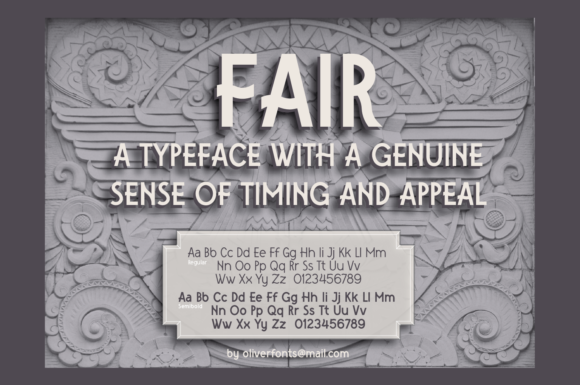
Discover the Secret to Elevating Your Designs: Fair Font
Have you ever found yourself staring at a blank page, struggling to bring your creative vision to life? It’s a feeling we’ve all been there, right? But what if I told you that the right font could be the missing piece that takes your design from bland to grand? Enter Fair Font, a game-changing sans serif font that’s about to revolutionize the way you think about typography.
This versatile font is designed to add a touch of sophistication and elegance to your work, making it perfect for designers who want to make a statement. With Fair Font, you can create visually stunning designs that capture the attention of your audience. Whether you’re working on a branding project, a website, or a social media campaign, Fair Font is the perfect addition to your creative toolkit.
Fair Font Key Features
- Font Family: Fair Font is a sans-serif typeface designed for clear readability and modern aesthetic. It comes in multiple weights, from Light to Bold.
- Character Set: Supports a wide range of languages, including Latin, Cyrillic, Greek, and many others, making it a versatile choice for global applications.
- Unique Characteristics: Fair Font features a unique blend of clean lines, rounded edges, and subtle nuances, making it an excellent choice for modern designs, digital interfaces, and publications.
Fair Font Review
I recently had the chance to dive into the Fair Font, and I must say it’s an interesting addition to the world of typography. Here are my thoughts.
- High legibility: The Fair Font is designed to be easy to read, making it perfect for body text.
- Neutral aesthetic: The font’s design is straightforward and doesn’t compete with the content.
- Scalability: The font looks great in both small and large sizes, which is a must-have for any font.
- Lack of personality: The Fair Font’s design is a bit too safe and doesn’t have any distinct character.
- Not ideal for headings: The font’s design doesn’t lend itself well to headings or titles, which might be a disappointment for designers.
- Not as versatile as other fonts: The Fair Font is best suited for body text and might not be the best choice for other uses.
The Fair Font is a solid choice for body text, but it might not be the most exciting addition to your font collection. It’s reliable and gets the job done, but it doesn’t stand out in any particular way. If you’re looking for a clean and neutral font, the Fair Font might be worth a look.
For optimal results, use Fair Font for body text and headings in your designs.
- Brochures and flyers.
- Business cards and letterheads.
- Website content and social media posts.
Lato is a sans-serif font with a clean and modern design. It’s ideal for body text, headings, and titles, and works well for both digital and print use. Lato is more elegant than Fair Font, with a more subtle feel that’s perfect for corporate or professional designs. However, it’s not as condensed as Fair Font, making it a better choice for longer blocks of text.
Montserrat is a sans-serif font designed specifically for urban environments. It’s ideal for body text, headings, and titles, and works well for digital use. Montserrat is more condensed than Fair Font, making it a good choice for shorter blocks of text or when you need a font that’s easy to read on small screens. However, it’s not as widely available as Fair Font, and may not work as well in certain languages or scripts